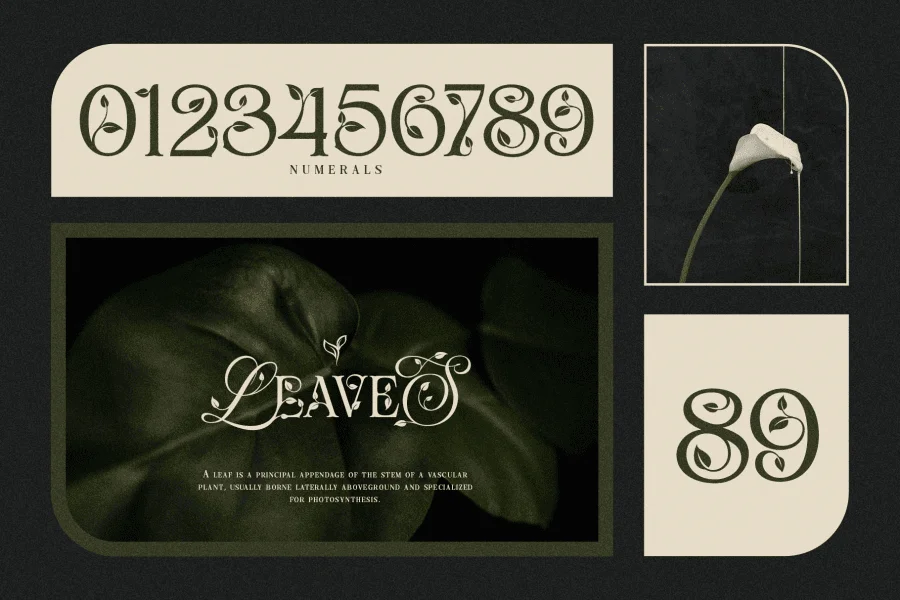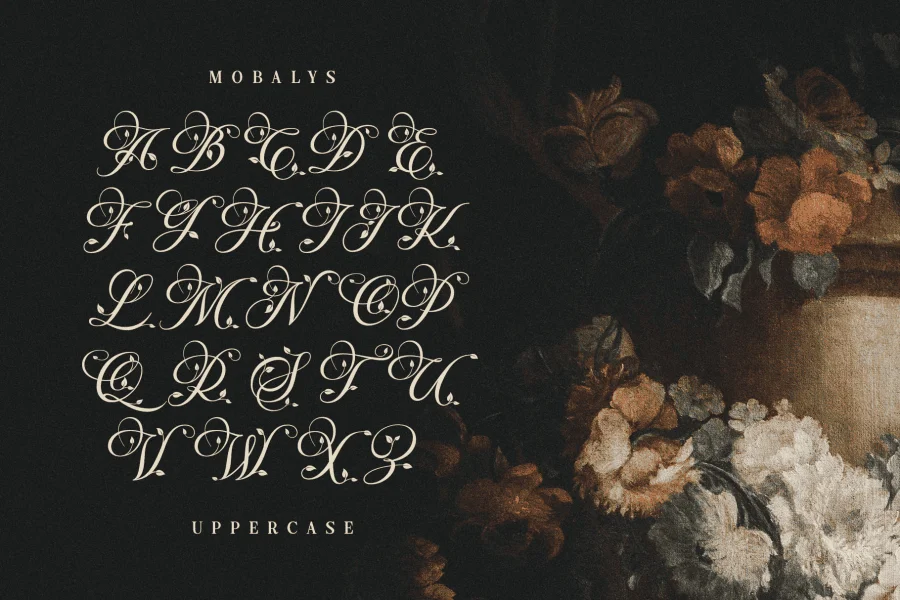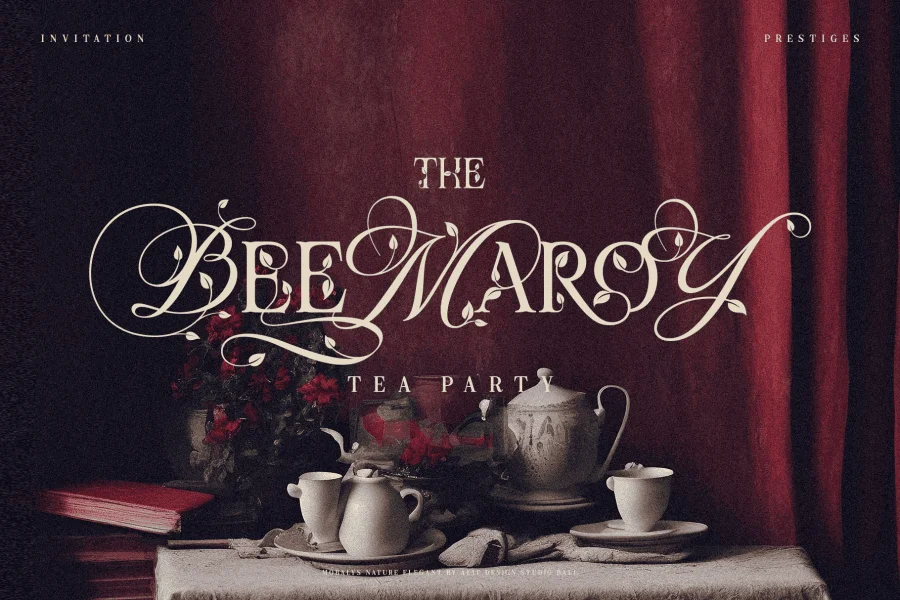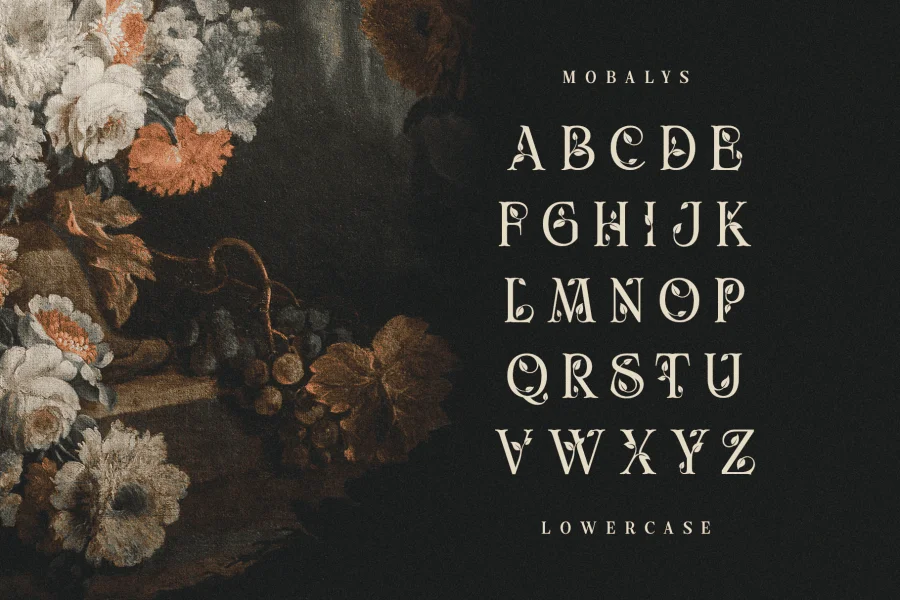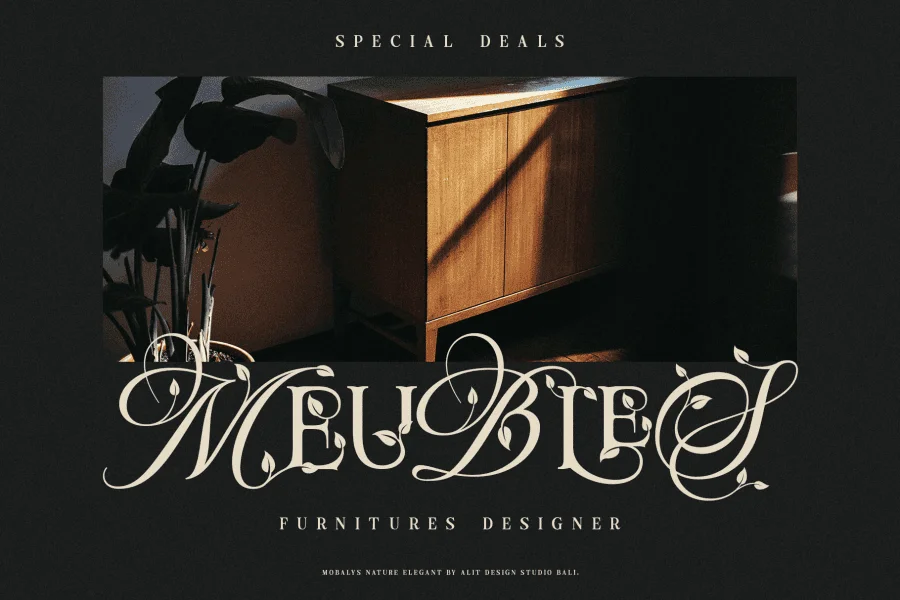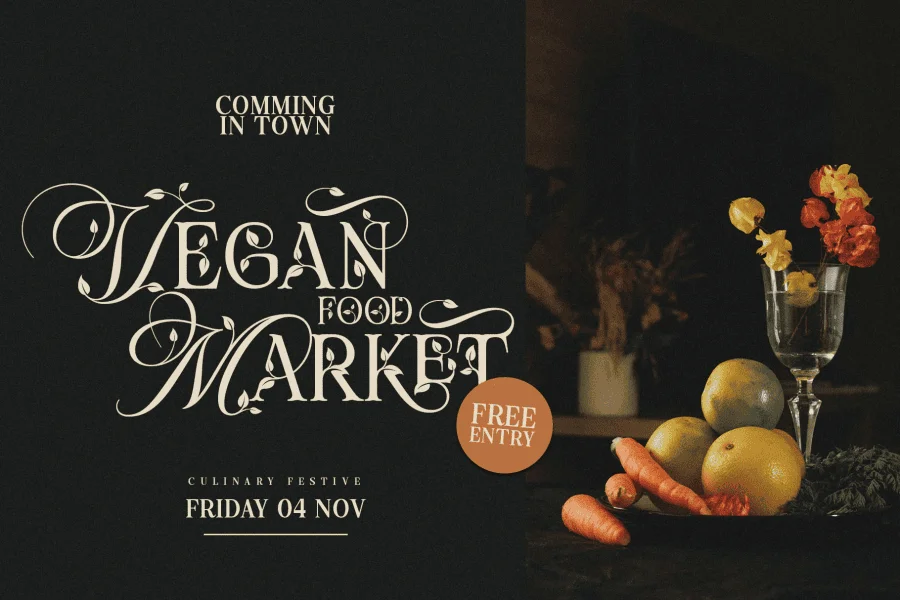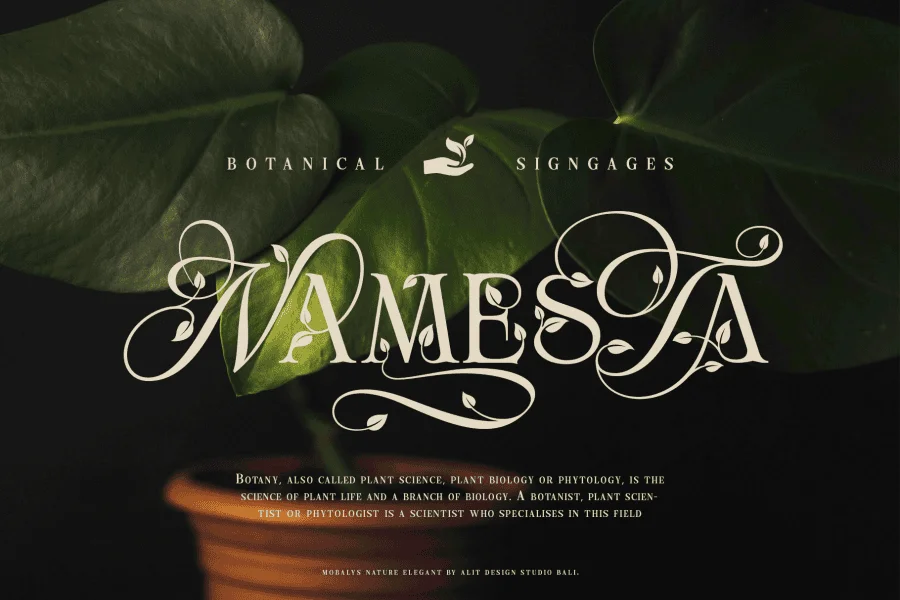
Introducing Mobalys - Where Elegance Meets Nature
Embrace the beauty of nature with Mobalys, a captivating font that seamlessly blends the grace of elegant script with the modern simplicity of sans serif. Immerse your designs in the lush greenery of a go-green theme, accompanied by stunning leaf illustrations that breathe life into your creations.